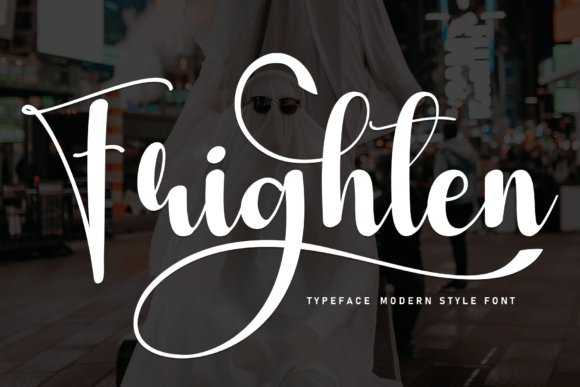
Step into the world of captivating scripts with Frighten Font, a treasure trove of handwritten elegance crafted by the talented andikastudio. This exquisite script font exudes a charm that will leave you spellbound.
Unleash your creativity and let Frighten Font guide you through a journey of limitless possibilities. Its natural and unique style makes it an ideal companion for an array of design projects, from logos and branding to invitations and greeting cards. Whether you're a seasoned designer or just starting, Frighten Font will elevate your work to new heights.
Picture this: your designs adorned with the graceful curves and flowing lines of Frighten Font, captivating the attention of your audience and leaving them mesmerized. Imagine your words transformed into works of art, each letter dancing across the page with a life of its own.
Embrace the allure of Frighten Font and watch as your designs blossom into masterpieces. Its sweet and friendly personality will add a touch of warmth and charm to any project, making it the perfect choice for those seeking to create designs that resonate with hearts and minds.
Step into the world of Frighten Font today and let your creativity soar. With its versatility and undeniable beauty, this script font will become your go-to choice for all your design endeavors.